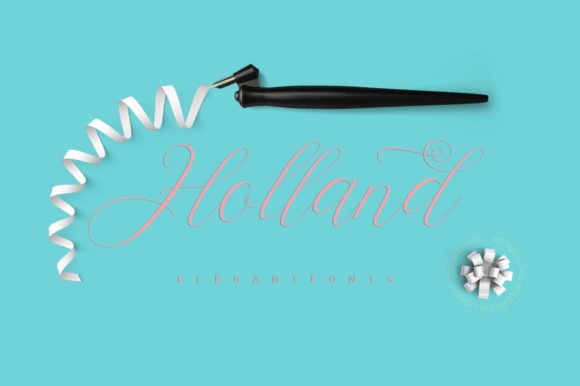
The Perfect Blend of Creativity and Readability
Have you ever stared at a blank page, waiting for inspiration to strike? It’s that moment when the world seems to freeze, and all you can think about is bringing your idea to life. For designers, this moment is a thrill – and the right font can make all the difference. That’s where the Holland Script Font comes in, a modern handwritten script that’s as easy to use as it is beautiful.
This versatile font is perfect for branding designs, adding a touch of elegance and sophistication to any project. With its great readability, you can trust that your message will shine through, no matter the context. Whether you’re a seasoned pro or just starting out, the Holland Script Font is a valuable addition to any designer’s toolkit.
Holland Script Font Key Features
- Font Style: Script font with a modern, elegant, and stylish look
- Unique Characteristics: Distinctive letter connections, flowing strokes, and subtle flair make it perfect for invitations, wedding cards, and other special occasions
Holland Script Font Review
I recently had the chance to work with the Holland Script Font, and I must say it’s a beautiful, elegant script font. ✨ The fluid connections between letters make it perfect for creating a sense of flow and continuity in your designs. ✨ The font’s soft, rounded edges give it a friendly and approachable feel, making it ideal for use in logos, headings, and body text.
However, there are a few limitations to consider. ⚠️ The font can be quite ornate, which may make it difficult to read in certain contexts, such as in small text sizes or at high resolutions. ⚠️ Additionally, the font’s connections can sometimes be too fluid, leading to letters that are difficult to distinguish from one another.
Here are some key points to consider when working with the Holland Script Font:
- Perfect for creating a sense of flow and continuity in designs
- Soft, rounded edges give it a friendly and approachable feel
- May be difficult to read in small text sizes or at high resolutions
- Letters can be difficult to distinguish from one another in certain contexts
Overall, I think the Holland Script Font is a beautiful and elegant choice for designers looking to add a touch of sophistication to their projects. However, it’s essential to consider the limitations and use it judiciously to achieve the best results.
Tips for Getting the Most Out of Holland Script Font
Use Holland Script Font for creative projects that require a whimsical touch, such as:
- Wedding invitations
- Food labels
- Personalized gifts
Remember to pair Holland Script Font with a clean and simple font for maximum readability.